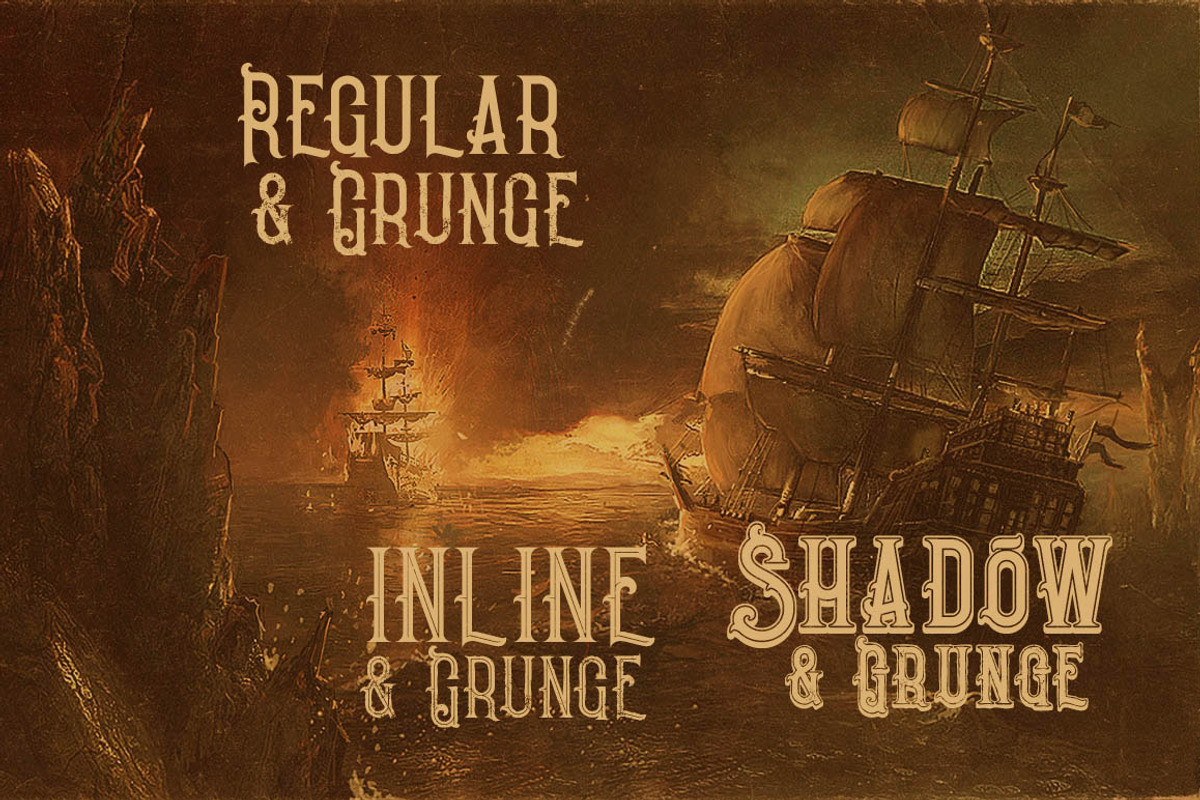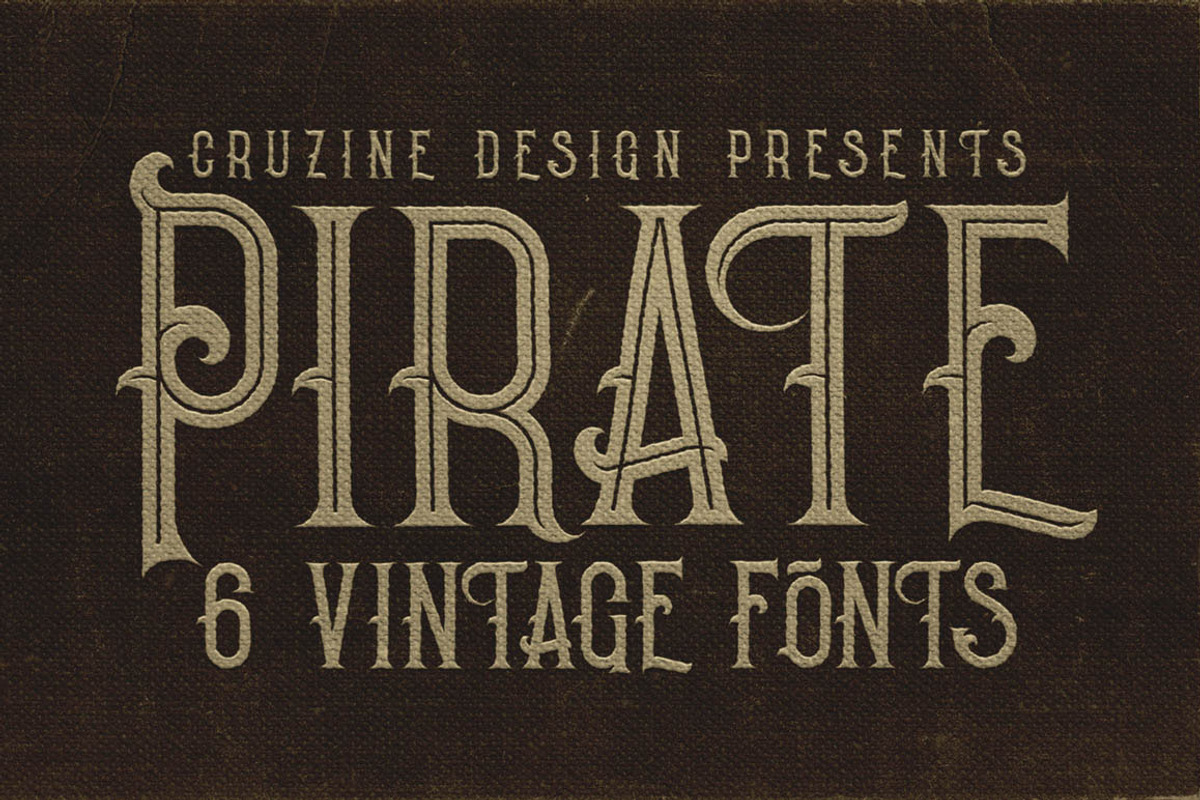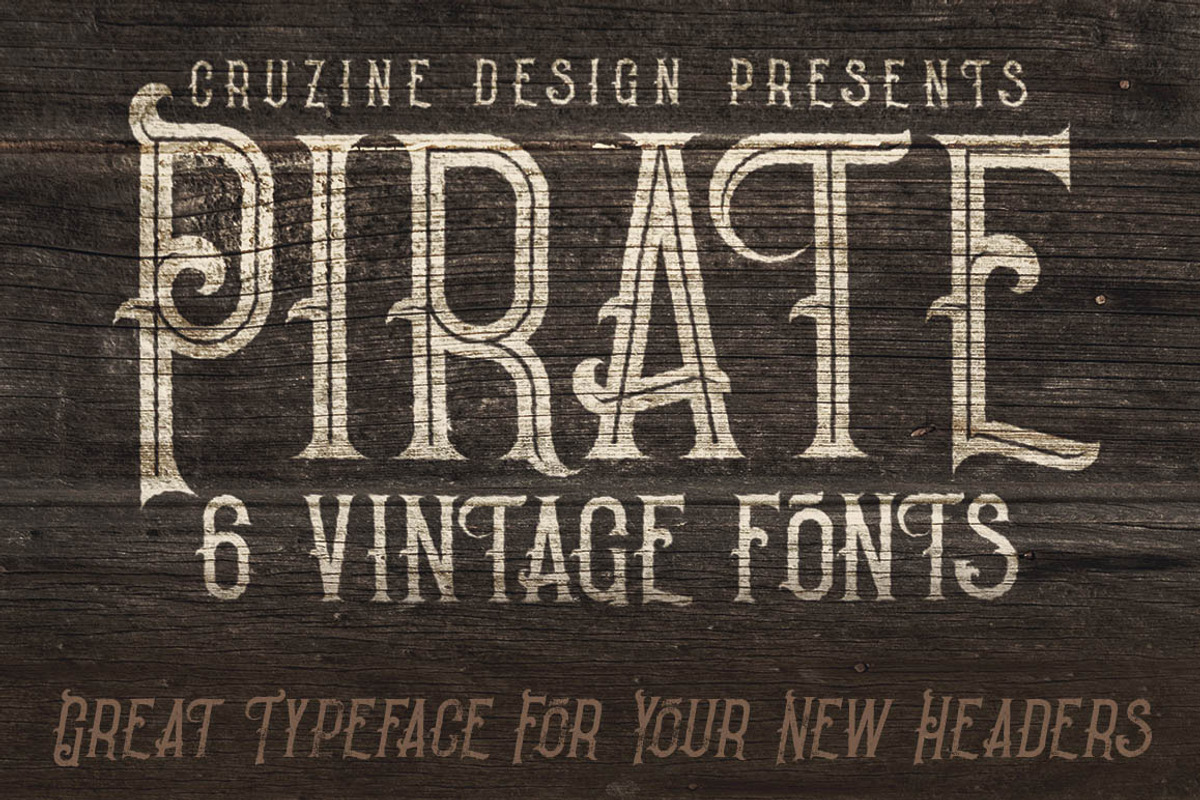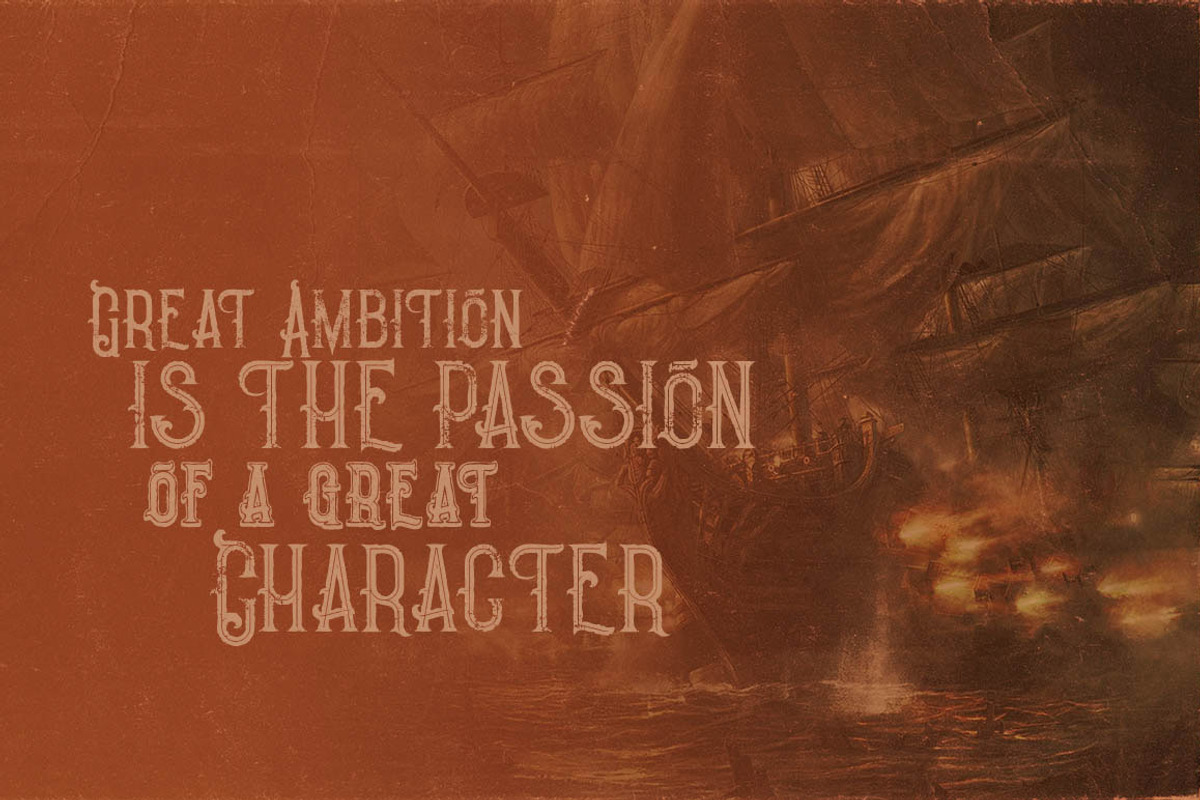
Pirate- Vintage Style Font
Pirate- Vintage Style Font by JumboDesign is a font selected for branding, posters, packaging, typography.
Why Pirate- Vintage Style Font is worth a look
Pirate- Vintage Style Font by JumboDesign fits naturally into Branding, posters, packaging, typography.